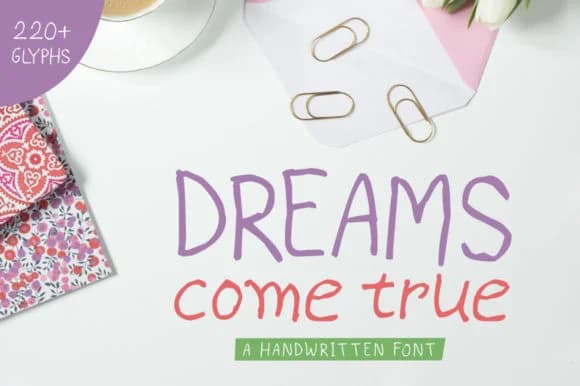
Dreams Come True Font by Shattered Notion is a spirited handwritten script that brings warmth and personality to creative work. With organic letterforms that balance playfulness with consistent legibility, the typeface creates visual interest while remaining clear. The expressive stroke work and characteristic baseline movement deliver authentic handcrafted feeling, perfect for wedding invitation suites, custom greeting card designs, artisan product packaging labels, and boutique brand identity work that demands personality and presence.
This handwritten script excels in projects requiring both charm and clarity. Event stationery, indie maker branding, and surface design applications all benefit from its energetic yet refined character. Small business owners and creatives frequently rely on expressive scripts like this to establish distinctive visual voice across physical and digital touchpoints. The letterform construction ensures reliable performance across different sizing, maintaining character strength from headlines through supporting design applications.
Dreams Come True Font delivers the human-made aesthetic contemporary audiences connect with while supporting professional design standards. Its versatility across print and digital formats makes it valuable for building cohesive visual narratives. Discover Dreams Come True Font on Creative Fabrica and bring this expressive handwritten style to your next creative project.
Dreams Come True Font is a script font that shines as a display or heading face. Pair it with a clean sans-serif or serif font for body text β the contrast creates a clear hierarchy while the two styles stay balanced and easy to read.